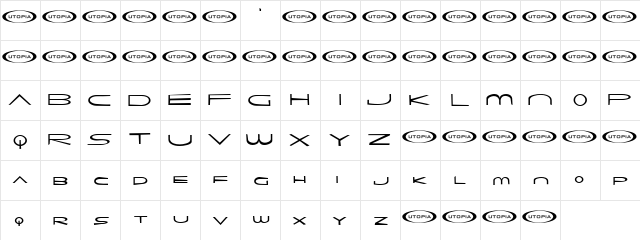
the monkey's ate my soul Regular
Design Context for the monkey's ate my soul Typeface
the monkey's ate my soul takes a measured approach to typography — its balanced proportions and neutral character make it a reliable workhorse for both digital and print work.